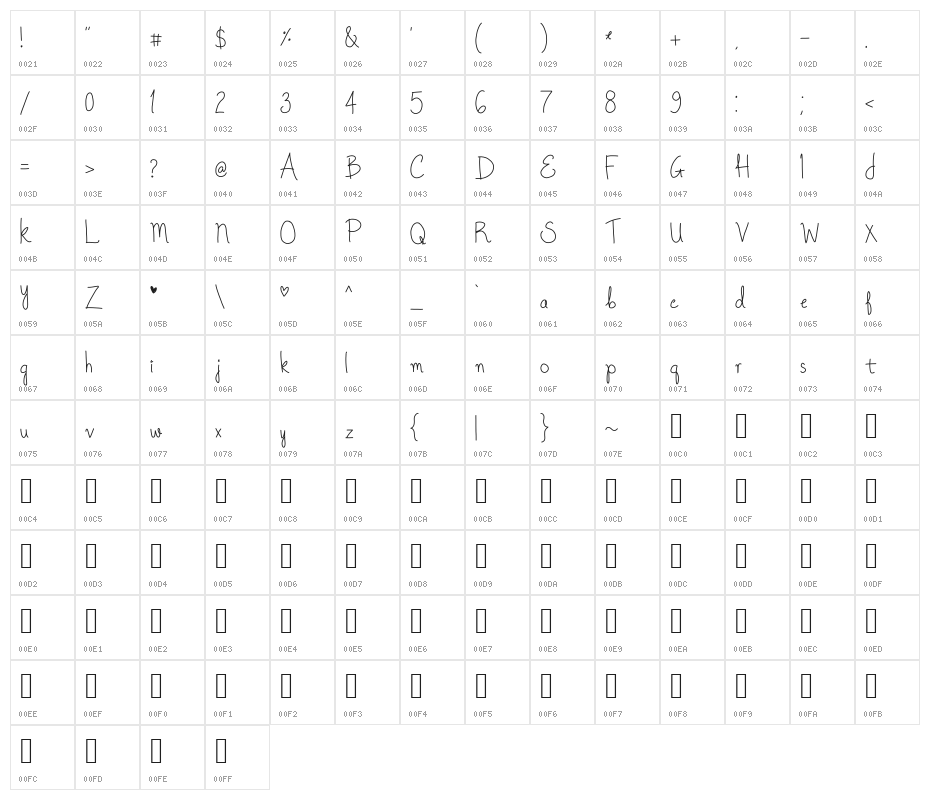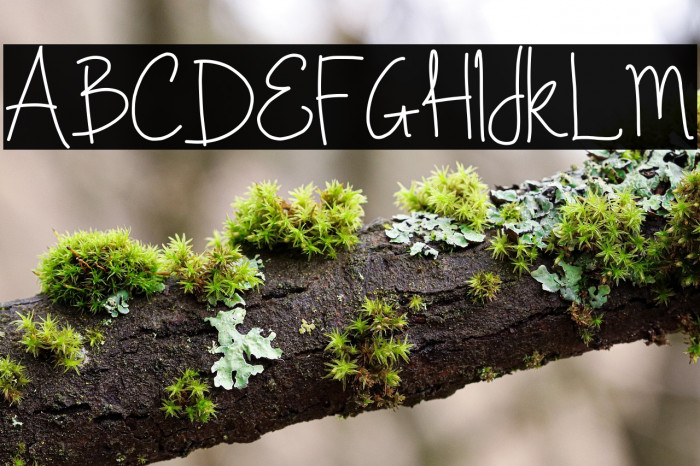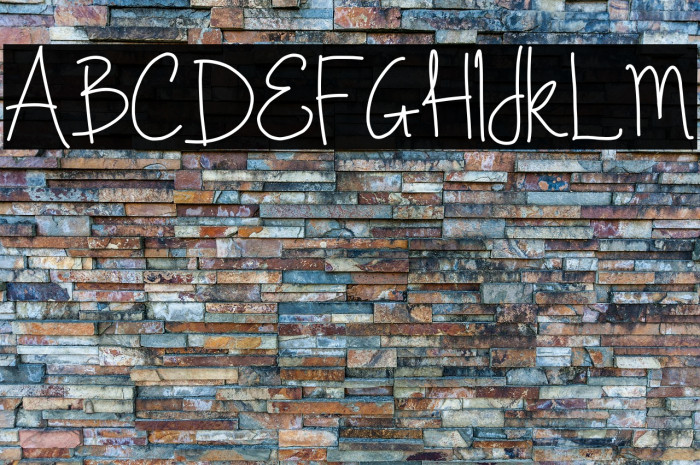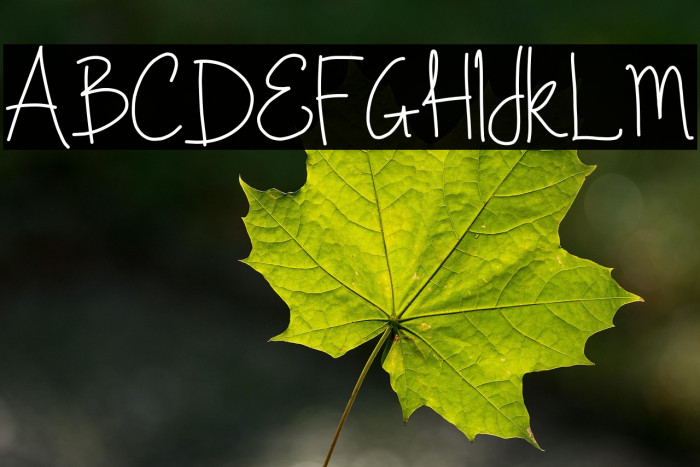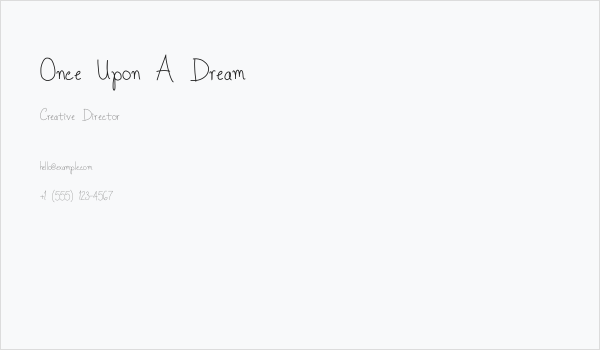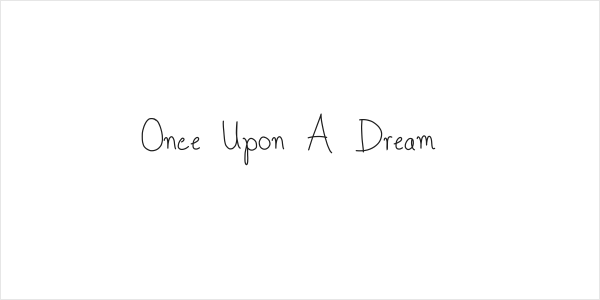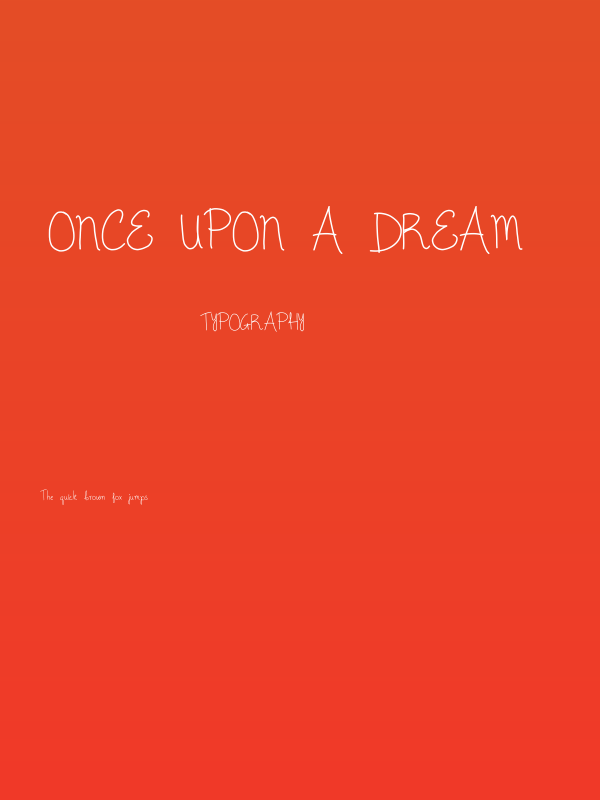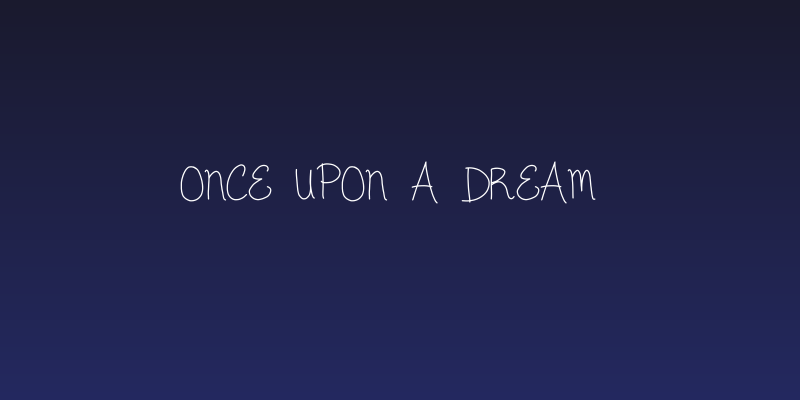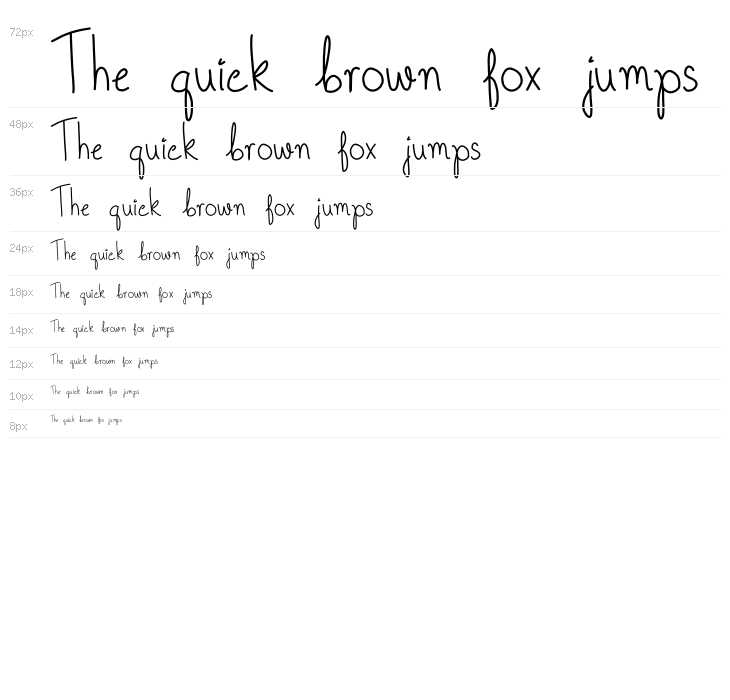
Once Upon A Dream Font
Once Upon A Dream Description
This font features a whimsical and playful handwritten style, characterized by its tall, narrow letterforms and slightly irregular strokes. The uppercase letters are distinct with elongated verticals and rounded curves, while the lowercase letters maintain a consistent flow with a casual, friendly appearance. The numerals are clear and legible, matching the overall style of the alphabet. Special characters are included, maintaining the same playful aesthetic. This font is perfect for projects that require a personal touch, such as invitations, greeting cards, or children's book covers.
| Proposed Projects | Ideal for invitations, greeting cards, children's book covers, and playful branding. |